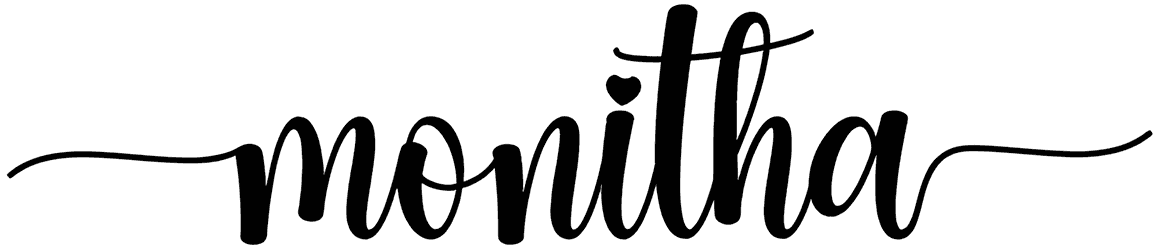
Monitha Font
If you think that a handwritten font with a modern hand lettering face can promote your design well, don’t lose this item. Monitha has a smooth and graceful vibe and would be a delicate pattern for various texts. Place this love font for your following designs, such as flyers, postcards, planners, and so on.